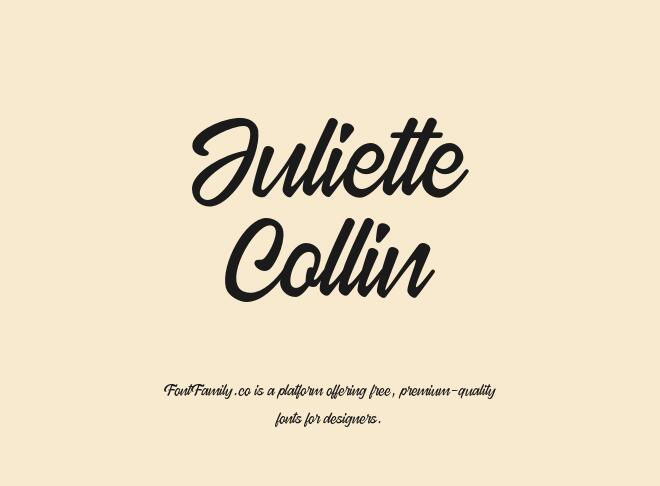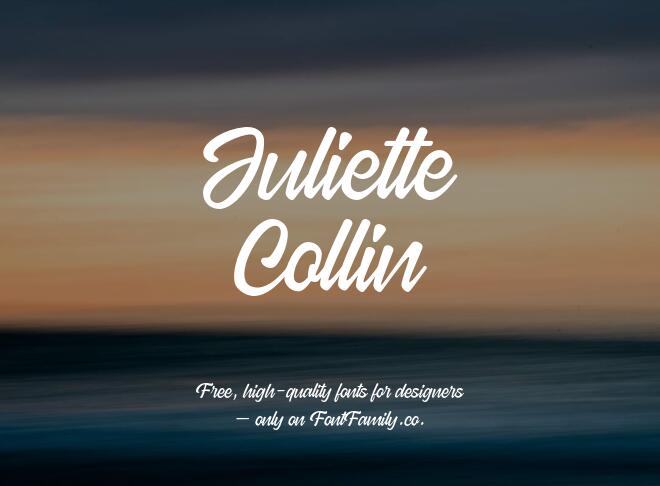
Juliette Collin Font
The Juliette Collin Font is a modern, elegant script font meticulously crafted by Juliette Collin Design Studio. With its smooth curves and flowing handwriting style, this font adds a touch of sophistication to any design project. It is perfect for branding, wedding invitations, business cards, and any project that requires a personal, handwritten touch. The font is reminiscent of classic script fonts but with a modern twist, making it a versatile choice for both contemporary and vintage-inspired projects. Its unique character set and ligatures allow for creative and expressive typography. The Juliette Collin Font is an excellent choice for designers looking to add a touch of elegance and personalization to their work.